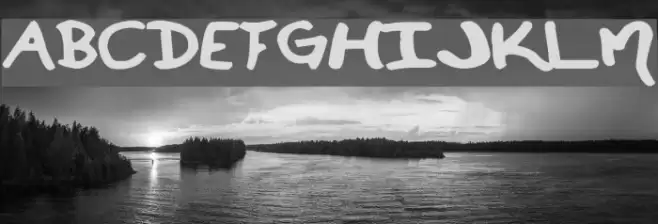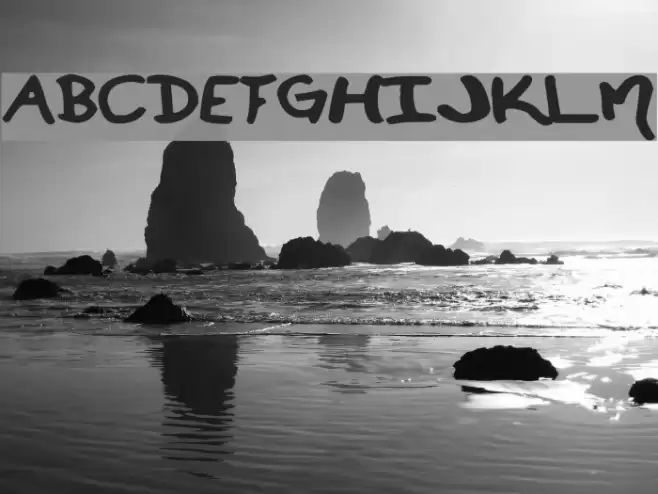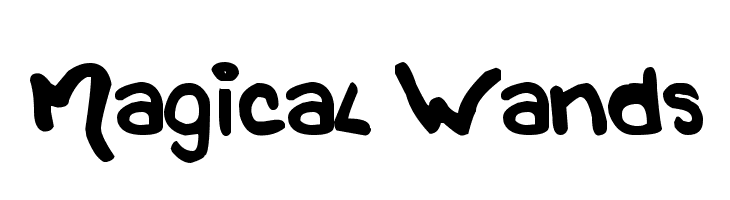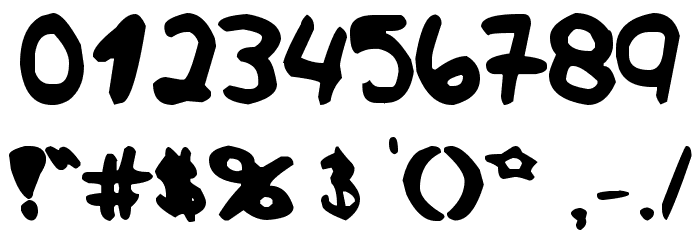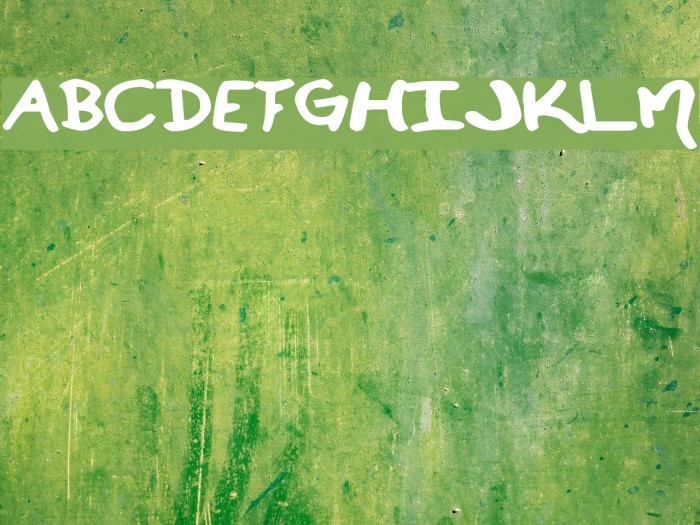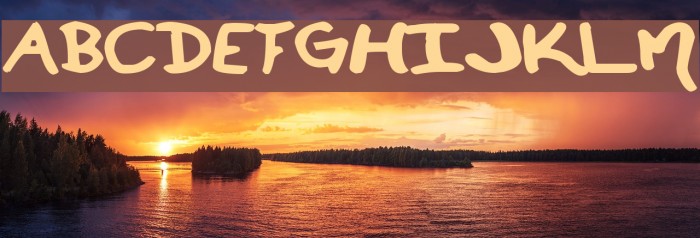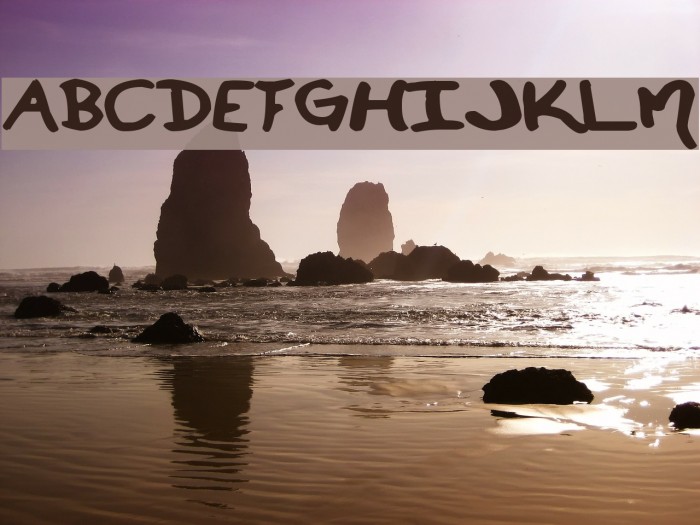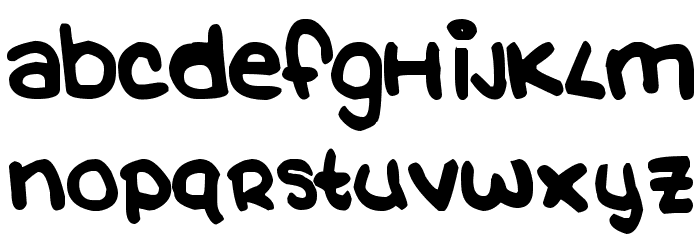
Magical Wands Font
Magical Wands Description
This font features a playful and whimsical design, characterized by its bold, rounded strokes and slightly irregular shapes. The letters have a hand-drawn quality, with a consistent thickness that gives them a solid, substantial appearance. The overall style is casual and friendly, making it suitable for projects that aim to convey a sense of fun and creativity. The numbers and special characters maintain the same playful aesthetic, ensuring a cohesive look across all elements.
A playful, bold, and hand-drawn style font with rounded strokes from Handwritten fonts.
- Proposed Projects: Ideal for children's books, playful branding, party invitations, and creative posters.
- Overall Style: Playful